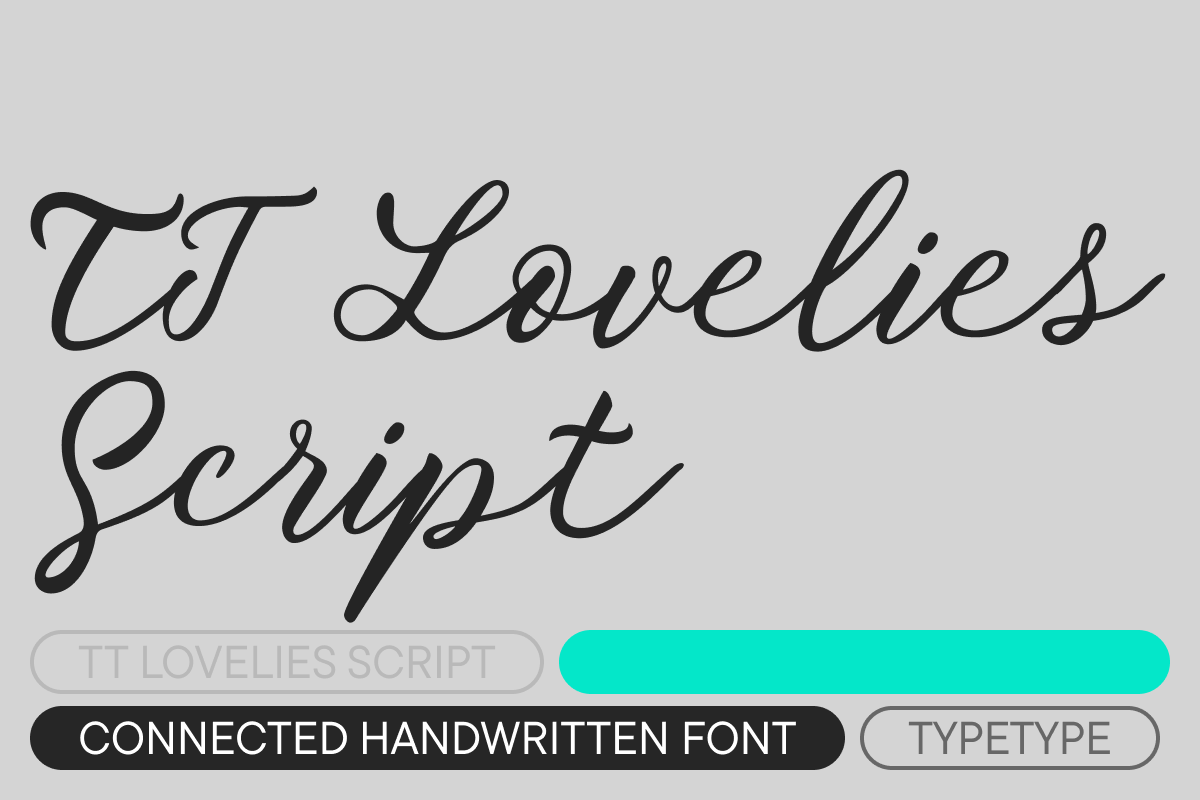
TT Lovelies Script
TT Lovelies Script is one of the most complicated projects we have ever carried out — there are 1115 glyphs, more than 2000 contextual alternates, 10000 kerned pairs and a large number of OT features. The most important characteristic of this font is that it is really seamless. We’ve done the impossible: in TT Lovelies Script, even capital letters are connected to lowercase letters without any breaks. TT Lovelies Script is a very lively and playful typeface with some unpredictable nuances.